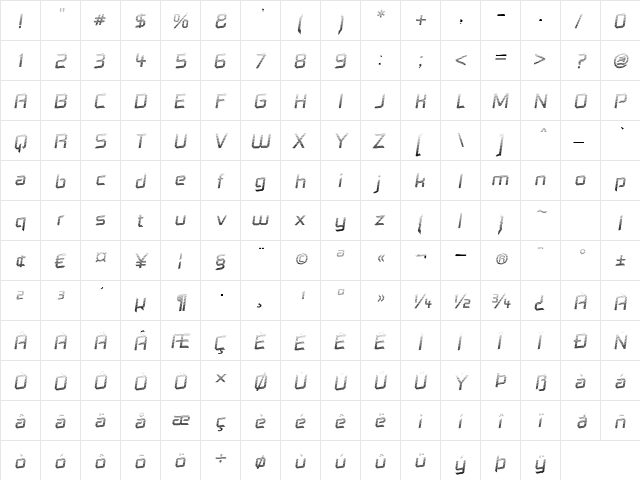
Dennis Hill Speeding Regular
Design Context for Dennis Hill Speeding Typeface
Dennis Hill Speeding takes a measured approach to typography — its balanced proportions and neutral character make it a reliable workhorse for both digital and print work.